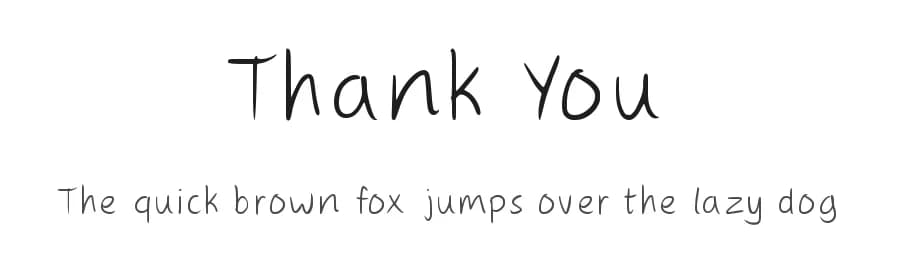
About Thank You Font
This font "Thank You" is created by Francis Fonye.
Thank You Font is a script font that shines as a display or heading face. Pair it with a clean sans-serif or serif font for body text β the contrast creates a clear hierarchy while the two styles stay balanced and easy to read.
Thank You Font